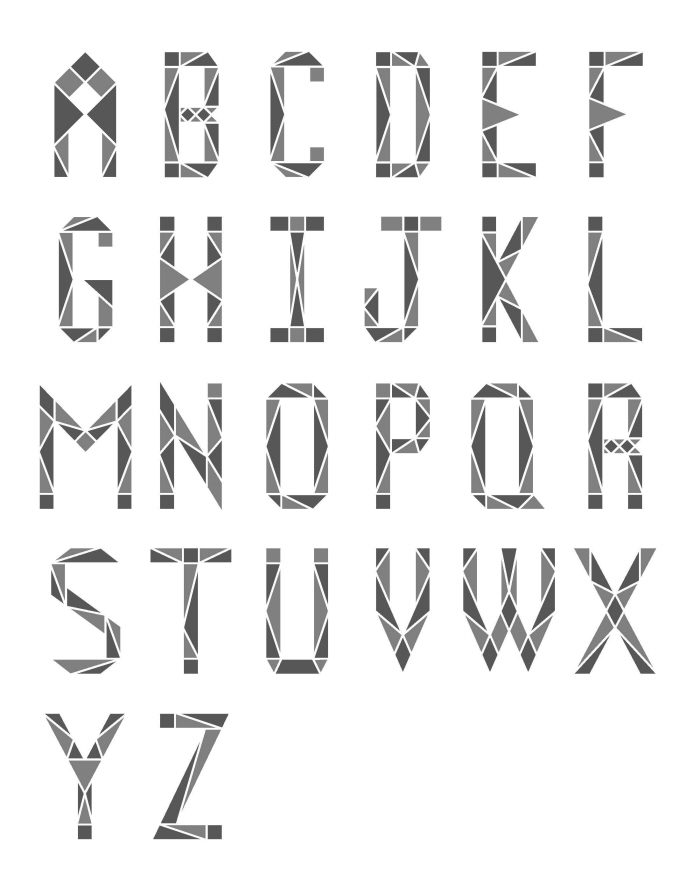
Personal logo
Personal font - The name of this font is "Shards", as in shards of glass. It is an extention of the personla logo.
LYTE logo - This logog was created for an up and coming hiphop artist named LYTE. It projects his strenghts as a hiphop artist, which are his lyrics and punchlines.